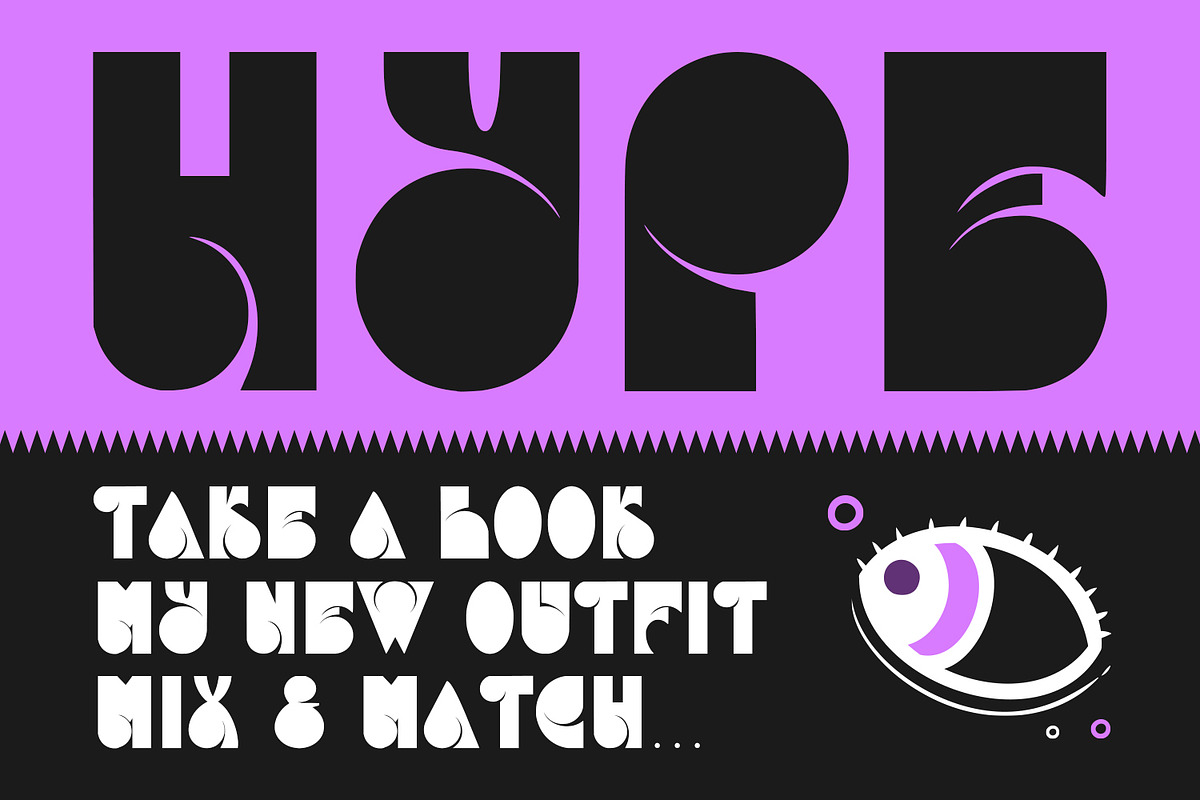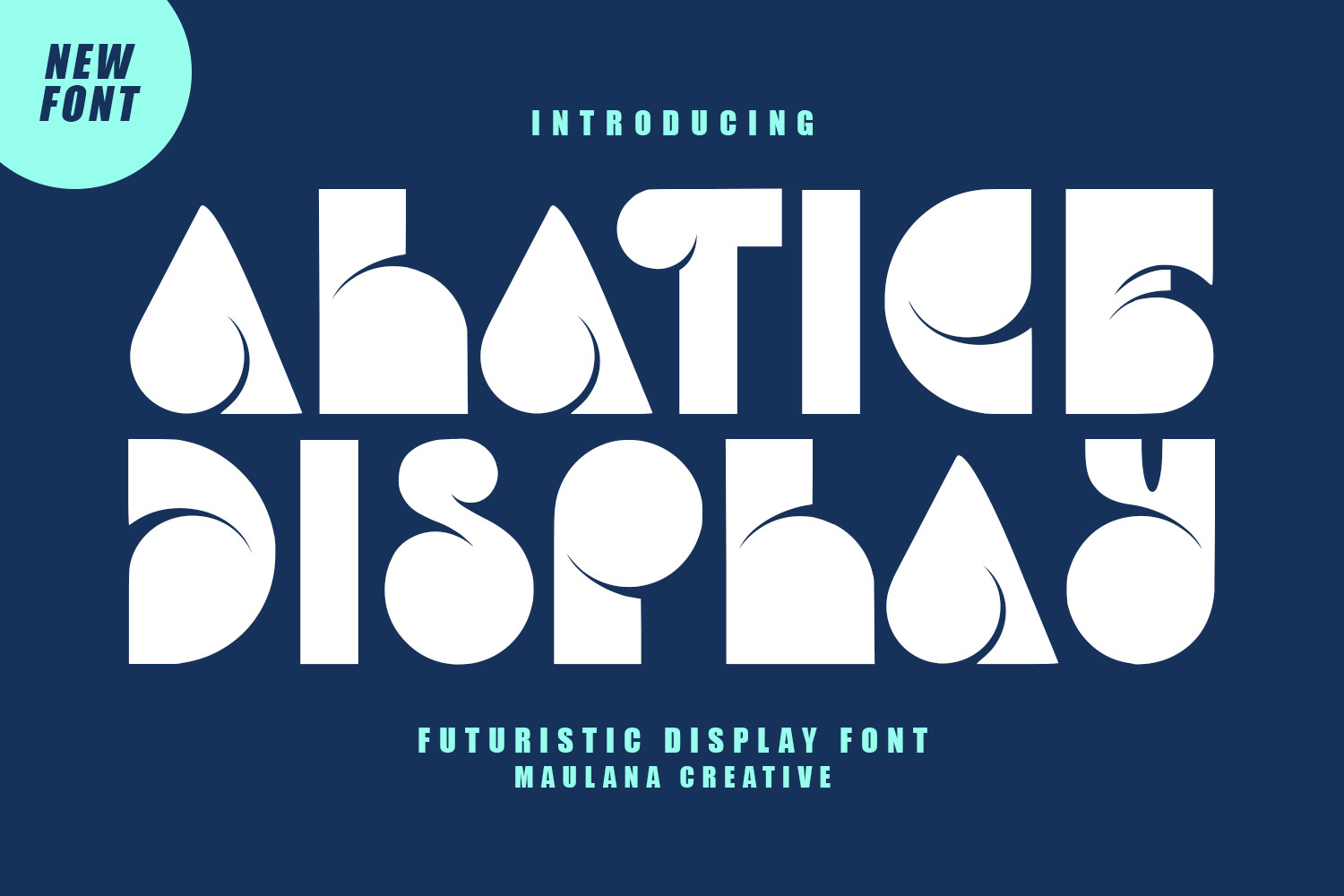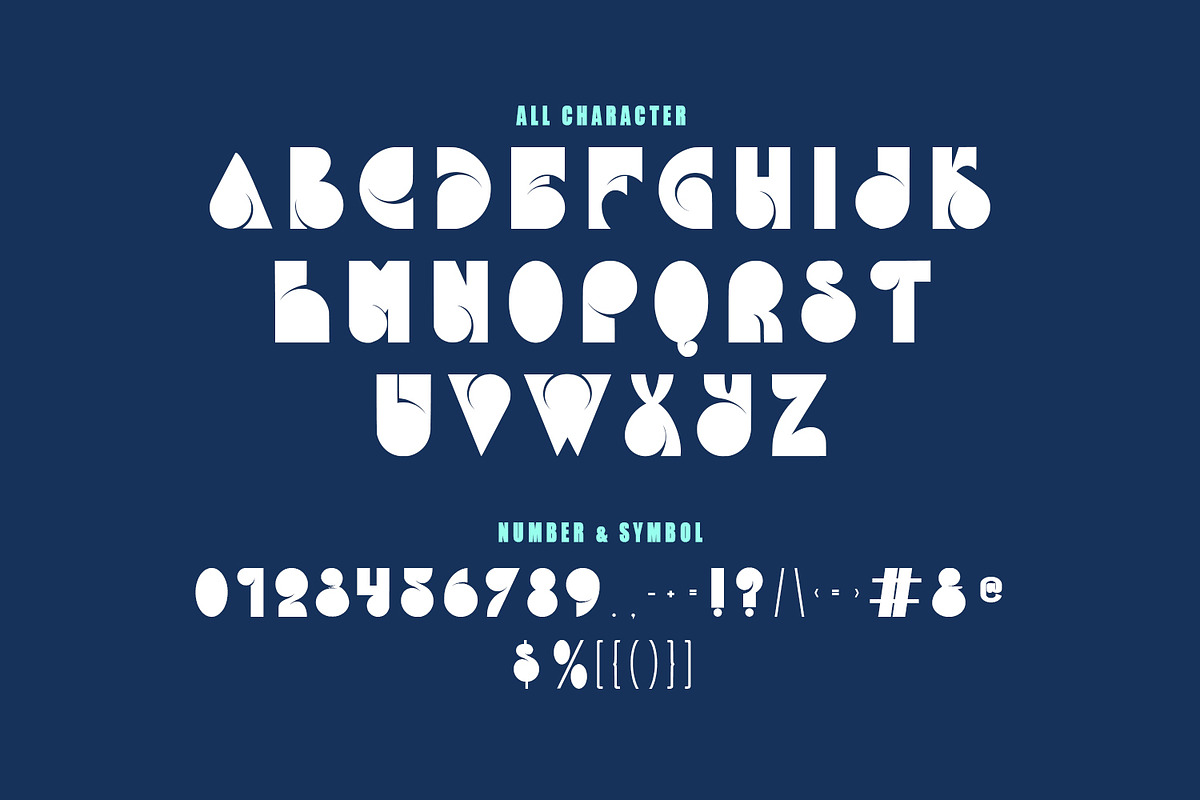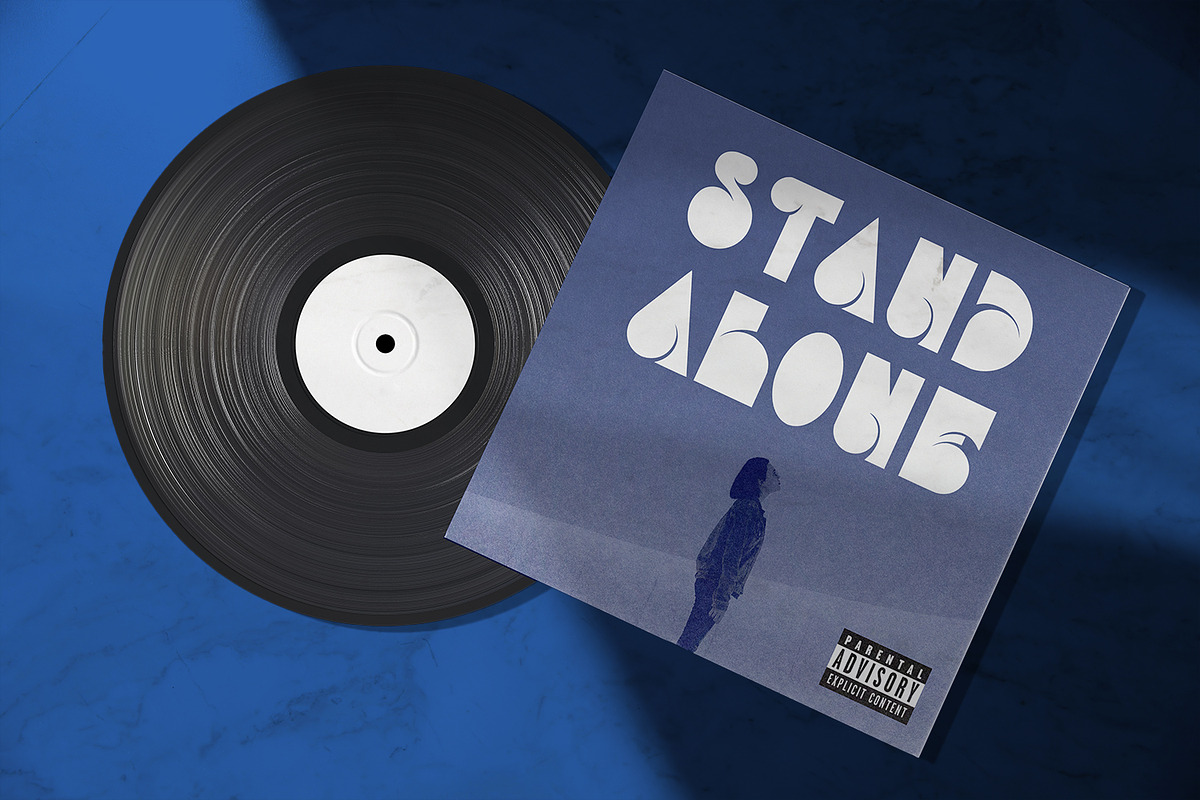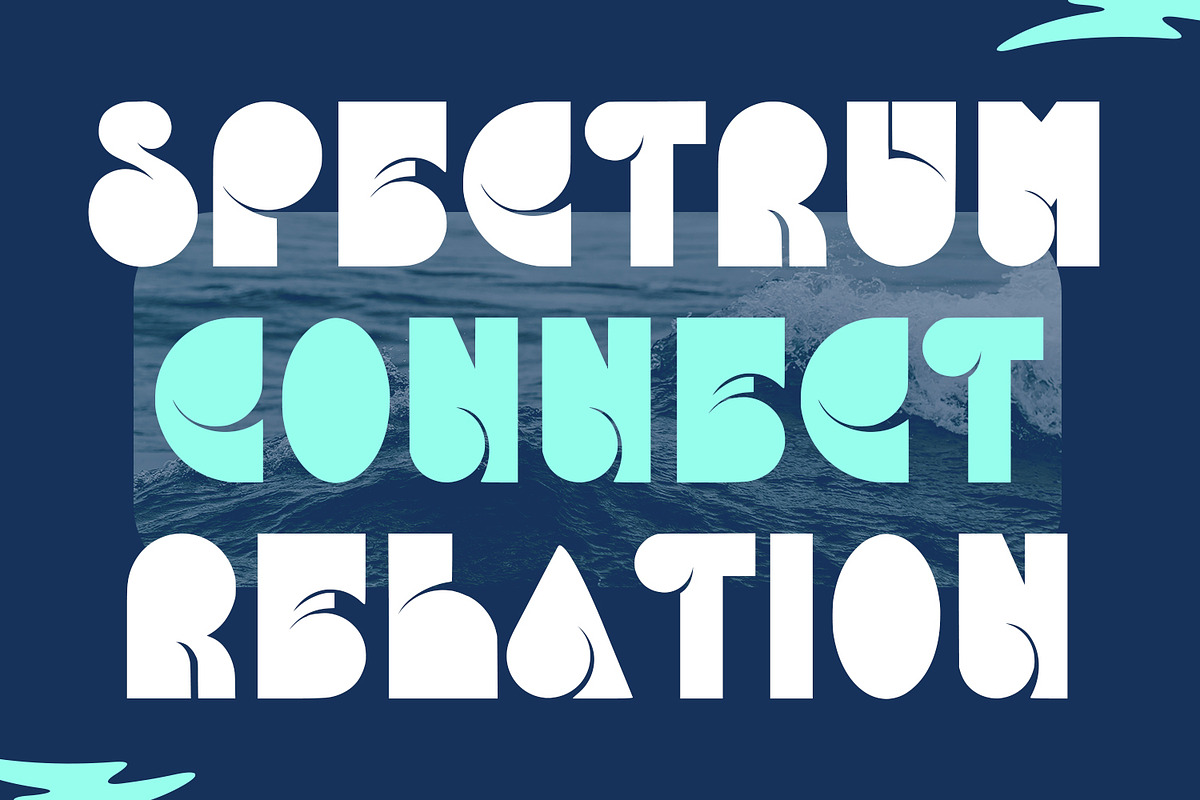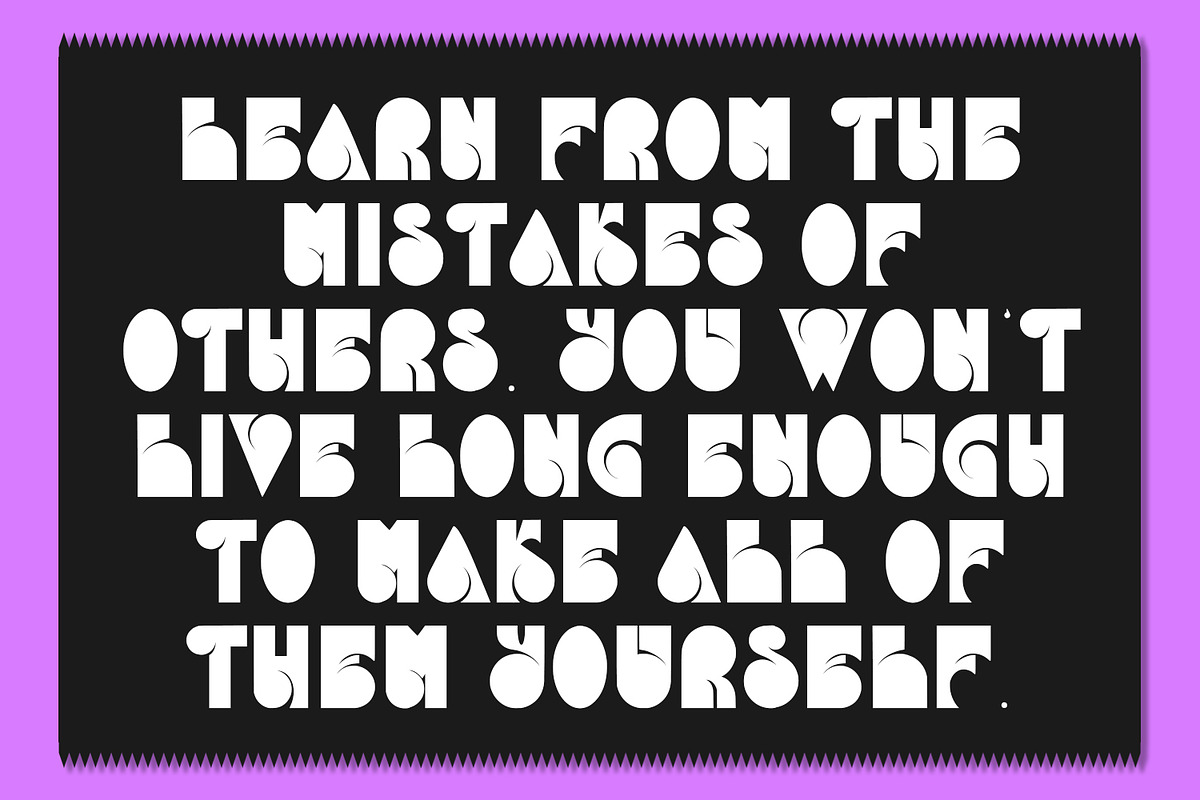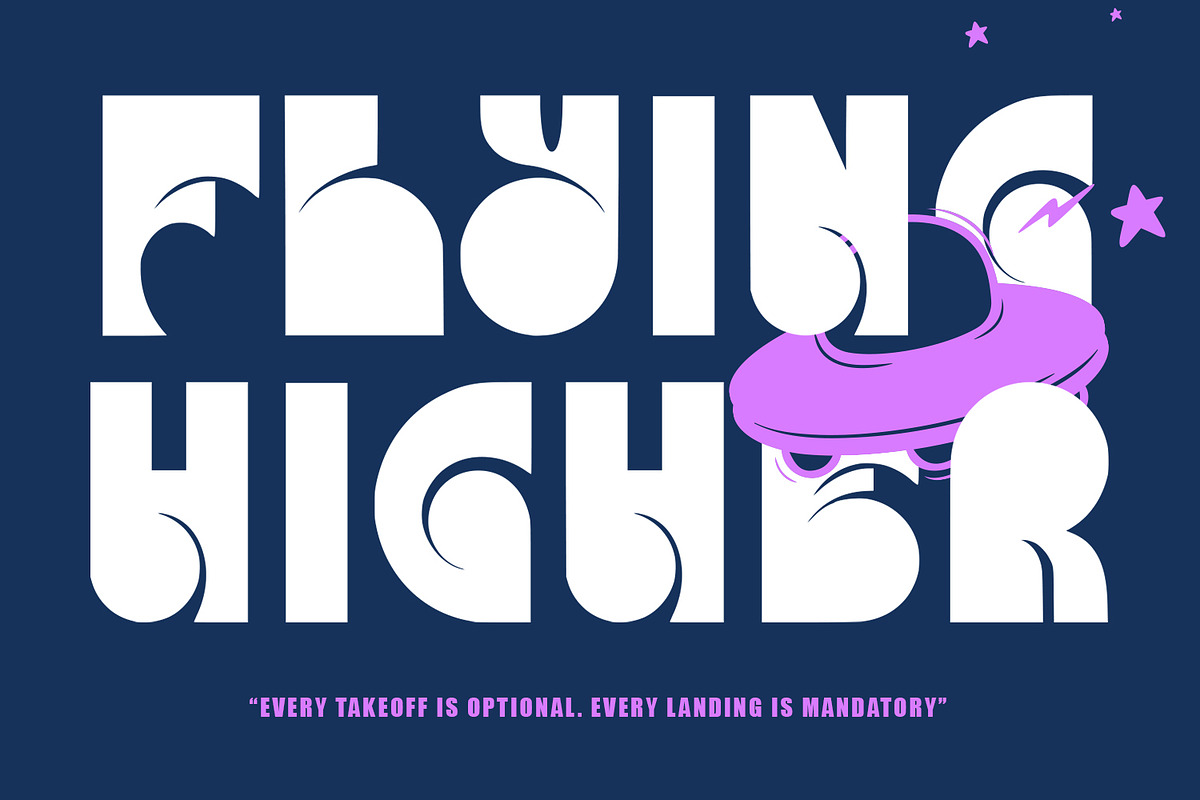
Alatice Futuristic Display Font
Alatice futuristic display font is a modern font. With bold stroke, fun character with alternates. To give you an extra creative work. Alatice font support multilingual language. This font is good for logo design, Social media, Movie Titles, Books Titles, a short text even a long text letter and good for your secondary text font with sans or serif. Make a stunning work with Alatice font.